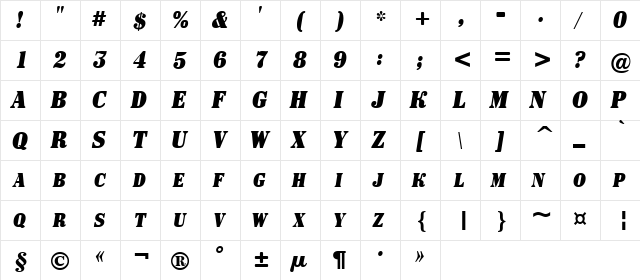
a_SignboardCpsNr BoldItalic
Design Context for a_SignboardCpsNr Typeface
a_SignboardCpsNr is a composed and adaptable typeface that performs quietly and consistently across a wide range of design contexts. The dynamic lean of this cut emphasises speed and emphasis in any layout. The heavy weight commands attention and anchors typographic hierarchies.